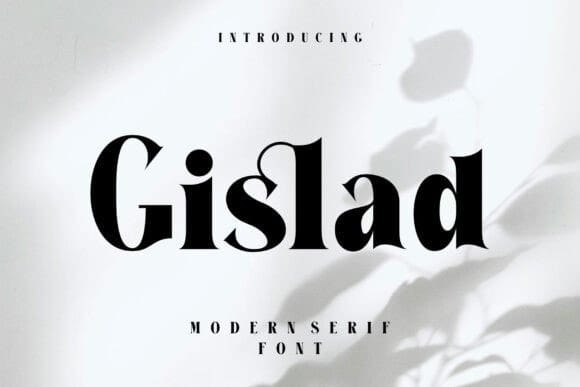
Gislad Font
Gislad Font: has a classic feel and incredible vintage beauty. Use this serif font to add a special vintage touch to any design idea you can think of!